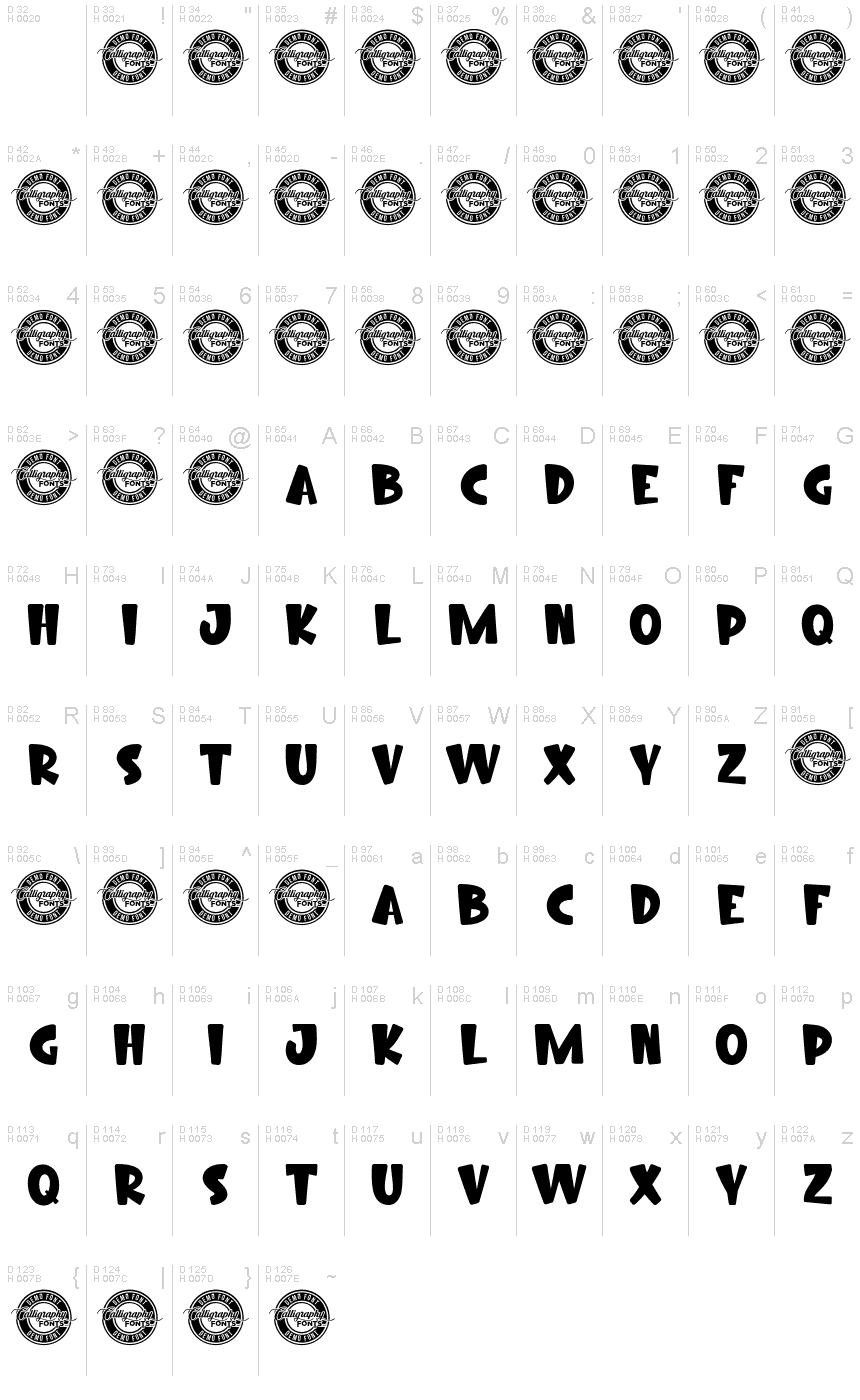
Brownie Cream Demo
Brownie Cream, the creation of Calligraphy Fonts, is a playful and whimsical display font. With its extra-bold weight and cartoon style, this font is perfect for projects that aim to capture attention and evoke a sense of fun.
Use it to bring life to children's book covers, birthday party invitations, or animated advertisements. Brownie Cream will add a delightful touch to any design requiring a bold and lively aesthetic.
Let your creativity run wild with this charming typeface that promises to make every project pop with its playful personality.